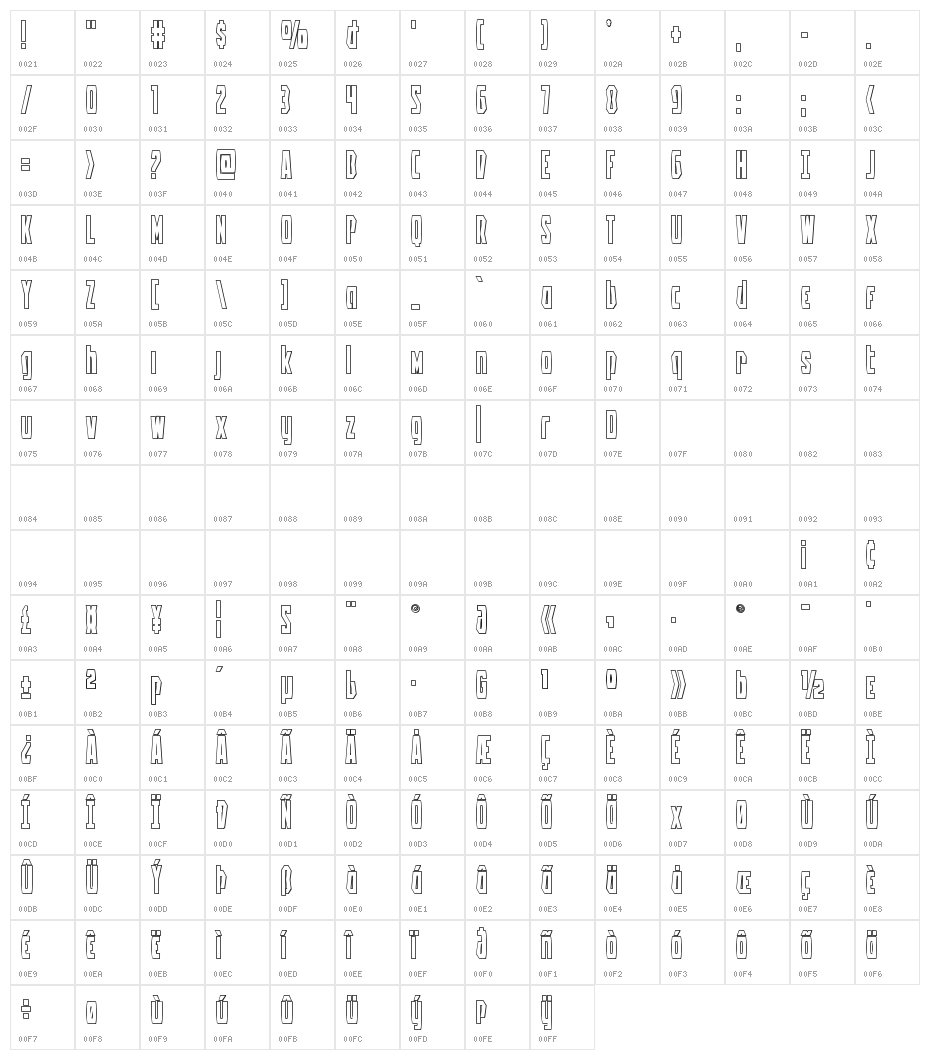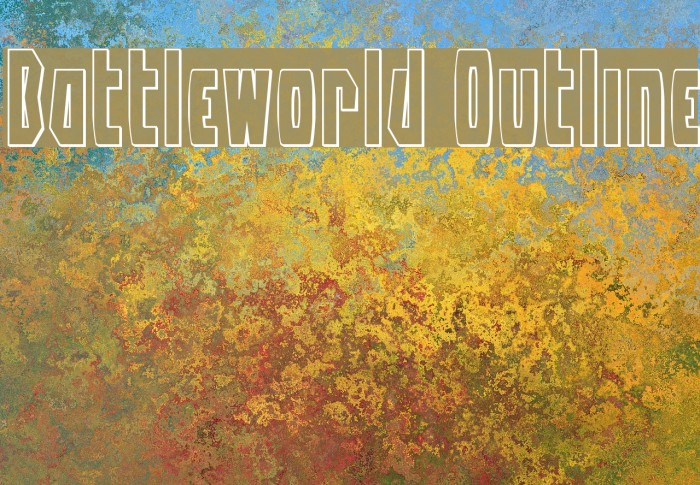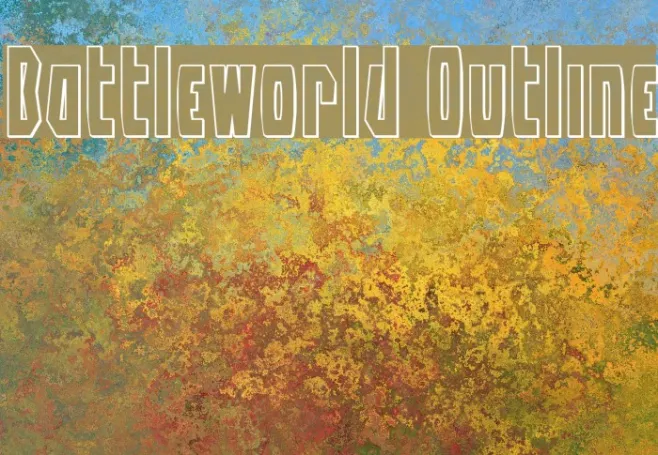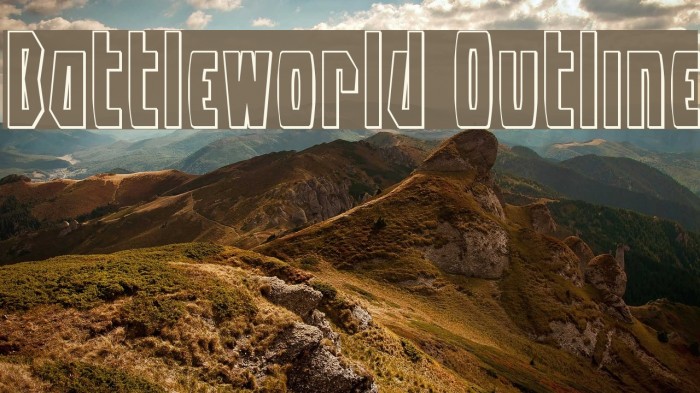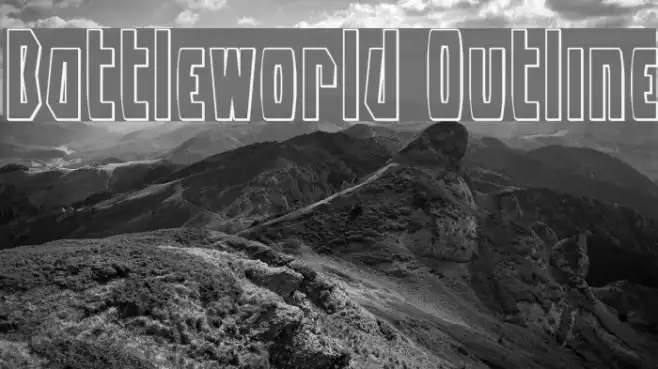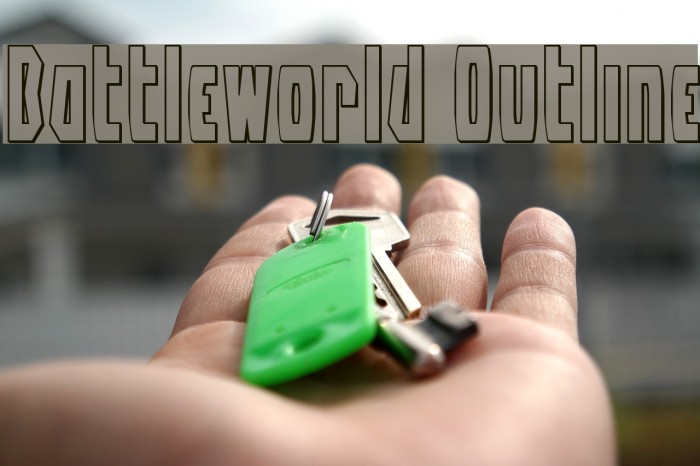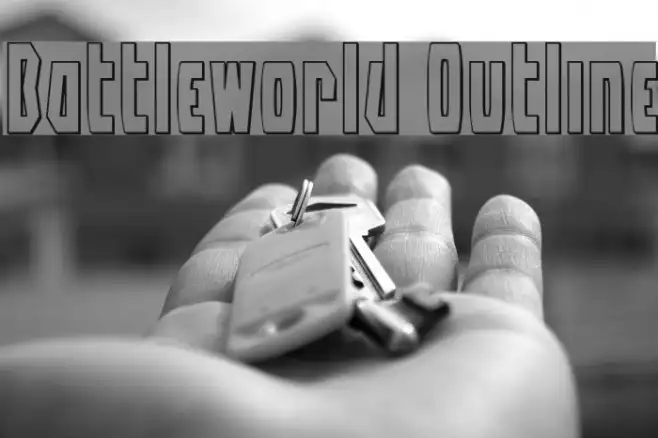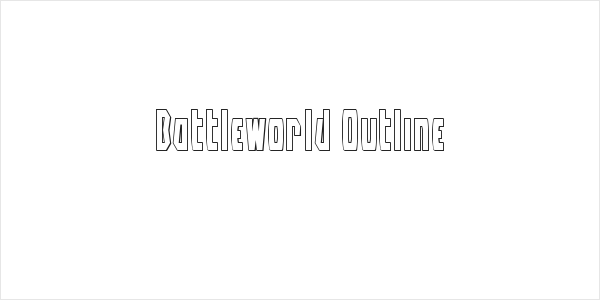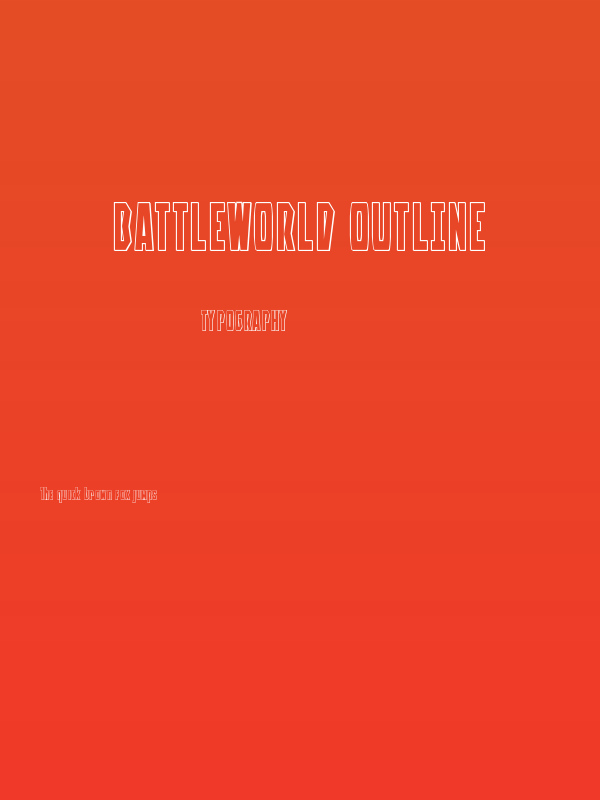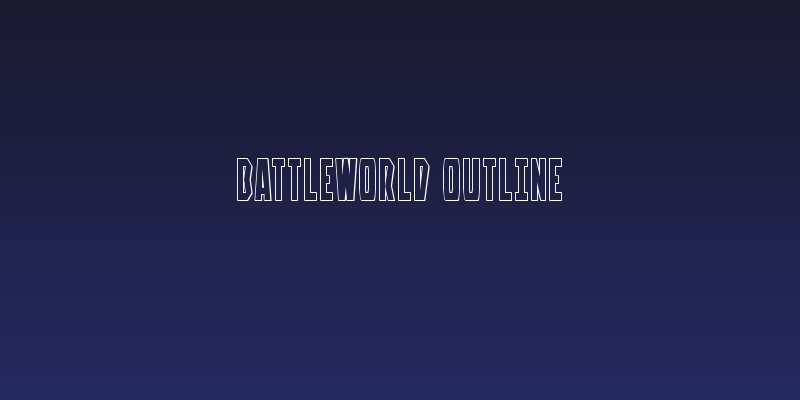
Battleworld Outline Font
Battleworld Outline Description
This font features a bold, geometric outline style that gives it a strong, impactful presence. The characters are constructed with sharp angles and straight lines, creating a futuristic and dynamic appearance. The uppercase and lowercase letters maintain a consistent height and width, ensuring uniformity across the typeface. The numerals and special characters are designed to match the boldness and angularity of the alphabet, making them cohesive with the overall design. The outline effect adds a layer of depth, making the font suitable for eye-catching designs.
| Proposed Projects | Ideal for video game titles, sci-fi movie posters, tech branding, and any project needing a bold, futuristic look. |